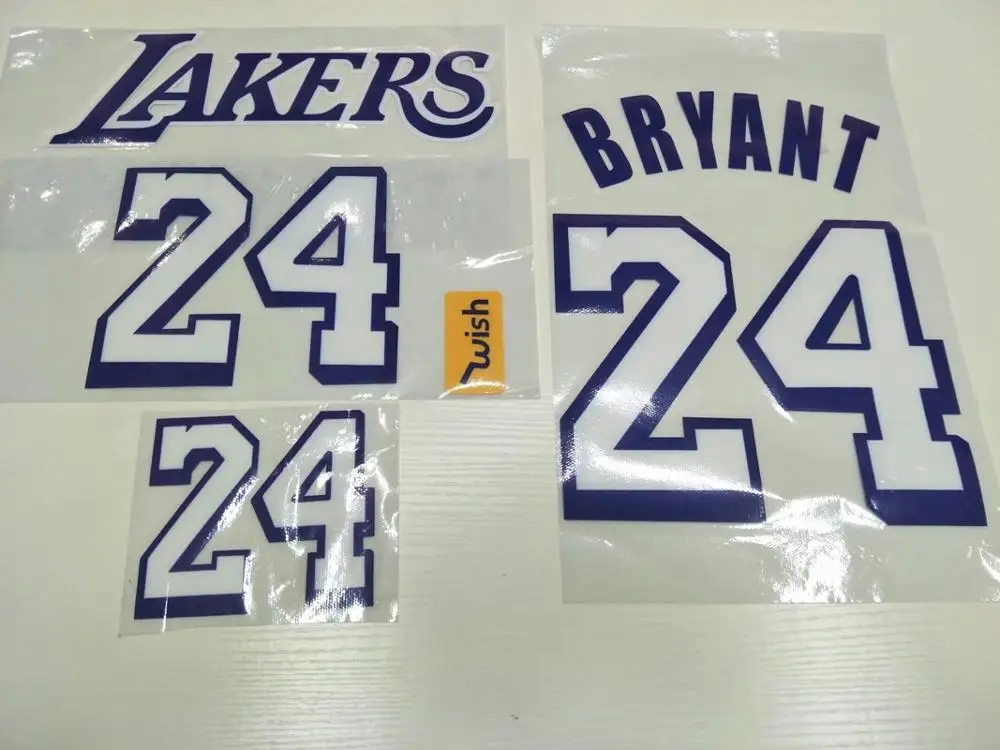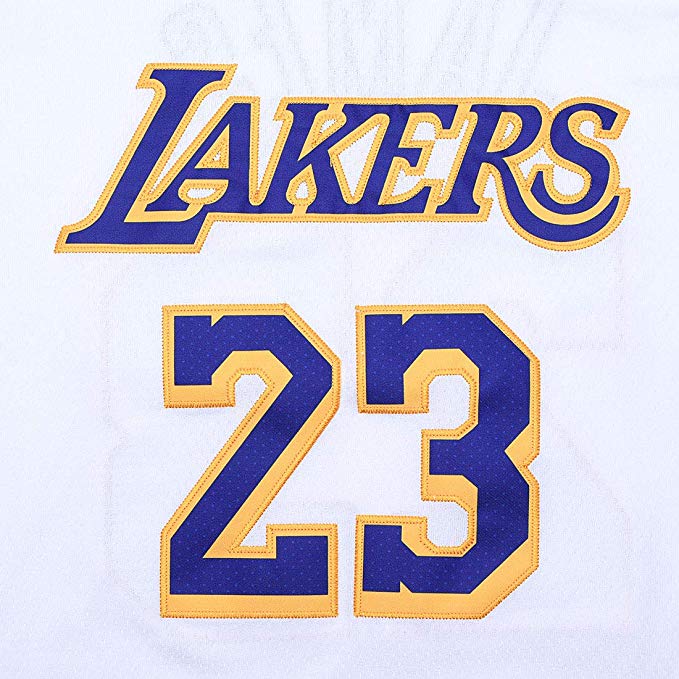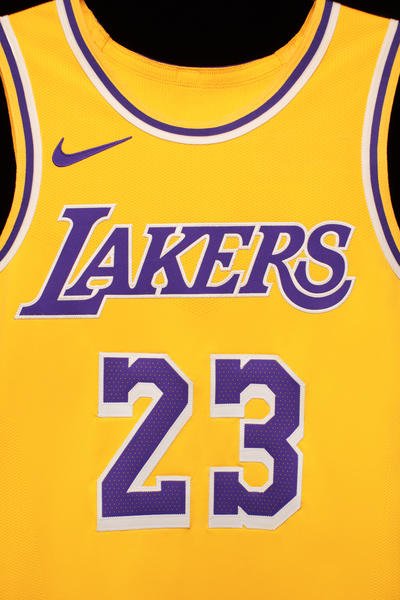
Lakers Font 23
The nba lakers font contains 73 beautifully designed characters.
Lakers font 23. Please use the pulldown menu to view different character maps contained in this font. Anyway weve found two fonts very similar font used in the logo. Archive of freely downloadable fonts. Los angeles lakers 2002 present.
Thousands of designers famous or not use the image font detection system to find a font or similar free fonts from an image. Probably its a custom font or maybe they customized another font in order to get this. Wordmark lakers in purple outlined in gold worn on los angeles lakers home jersey. Nba lakers showtime opentype personal use.
Nba lakers showtimeotf. The lettering for the lakers logotype resembles a font named bodoni italic created by gerald giampa. The lakers logo features the lakers logotype as well as the text los angeles on a basketball. Basic font information.
Nba lakers also known as los angeles lakers font is a fancy old school font designed by eriq p. The font is licensed as free. We have been searching for a while and we couldnt find the exact font used in the los angeles lakers logo. The zip archive contains the following files.
Nba lakers showtime font. In doubt please refer to the readme file in the font package or contact the designer directly. The nba lakers showtime font contains 236 beautifully designed characters. What font was used in los angeles lakers logo.
Bauer bodoni black italic by gerald giampa.